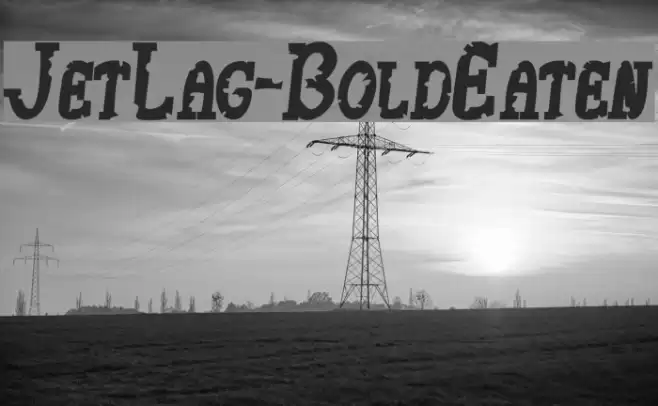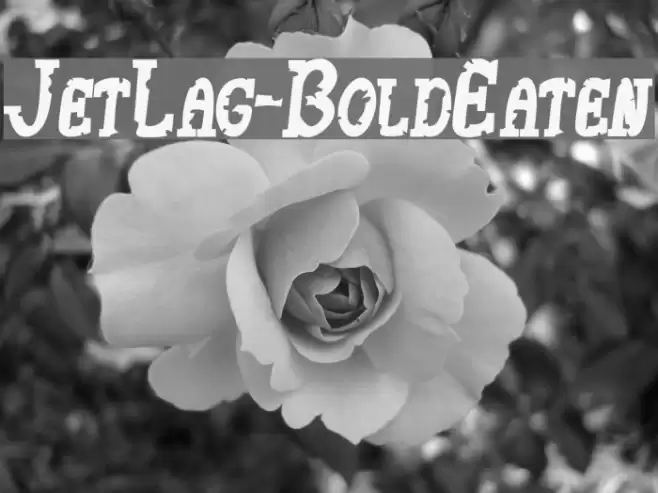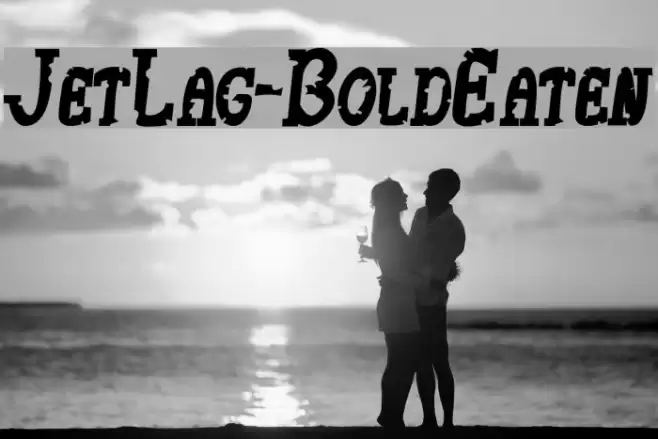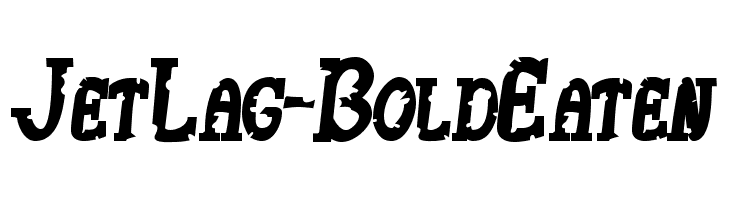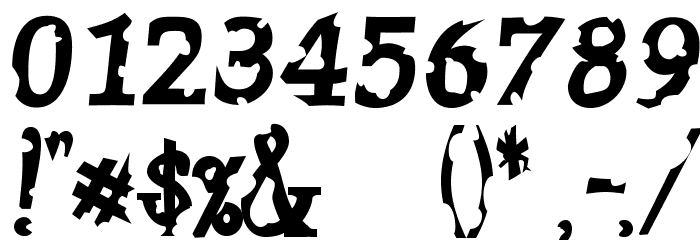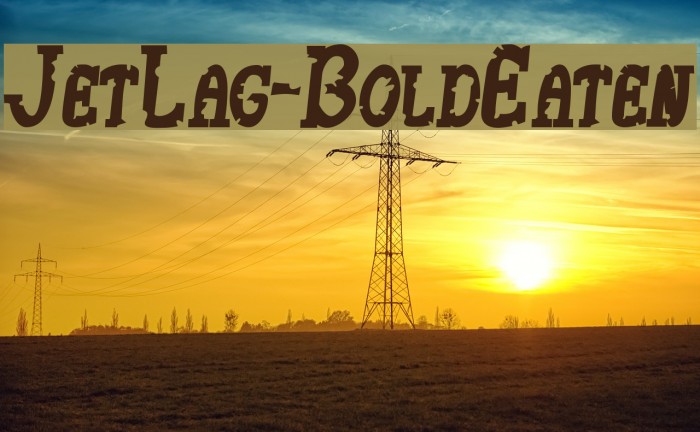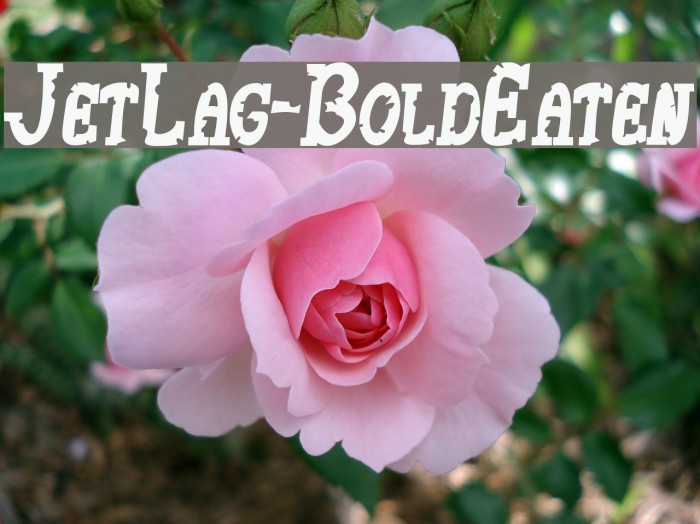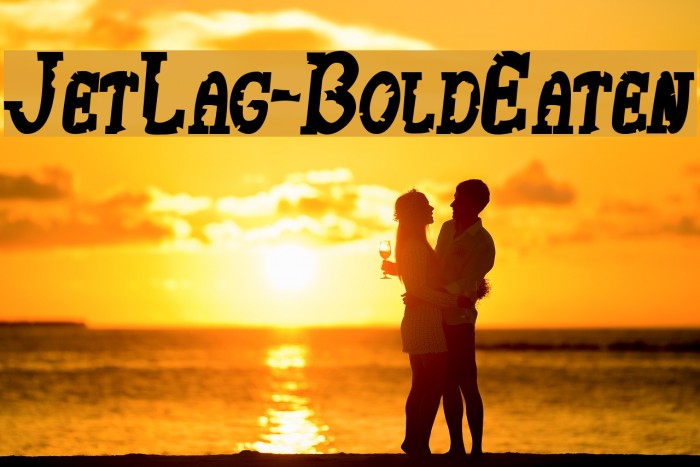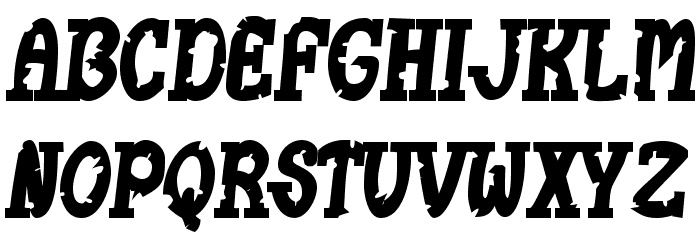
JetLag-BoldEaten Font
JetLag-BoldEaten Description
This font features a bold and dynamic style, characterized by its thick, uneven strokes and playful, slightly distressed appearance. The letters have a unique, hand-crafted feel, with irregular edges that give them a rugged, vintage look. The uppercase and lowercase letters maintain a consistent height, while the numbers and special characters follow the same bold and expressive design. This font's distinctive style makes it stand out, offering a sense of movement and energy. It's perfect for projects that require a touch of creativity and boldness, such as posters, logos, or any design that aims to capture attention with its unique flair.
A bold, dynamic font with a rugged, vintage style and playful, distressed edges from Uncategorized fonts.
- Proposed Projects: Ideal for posters, logos, branding, and creative design projects that require a bold statement.
- Overall Style: Vintage